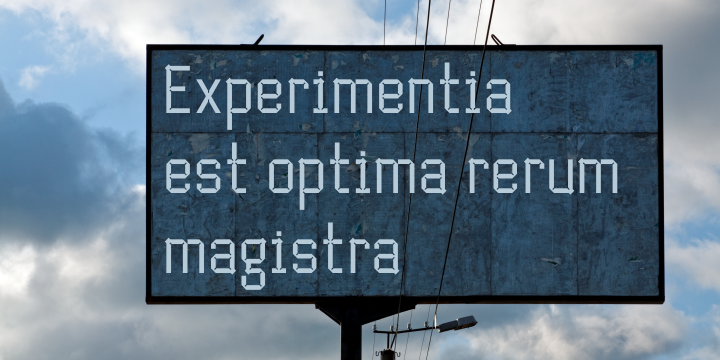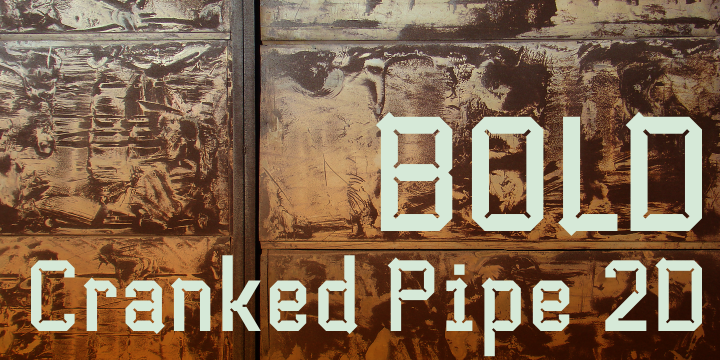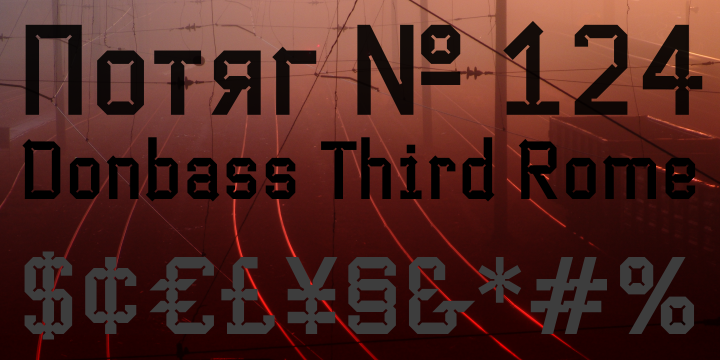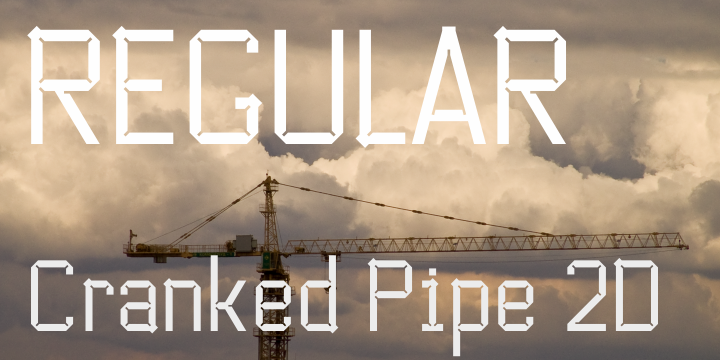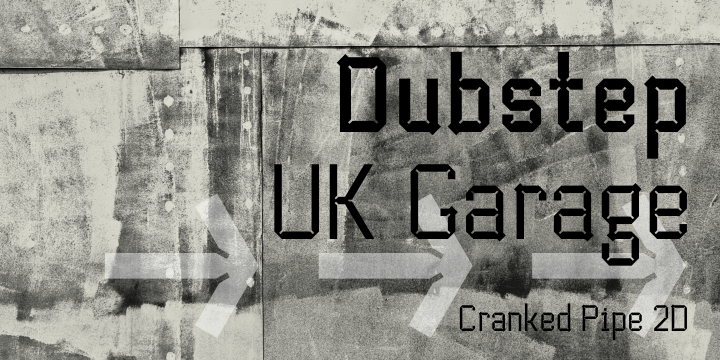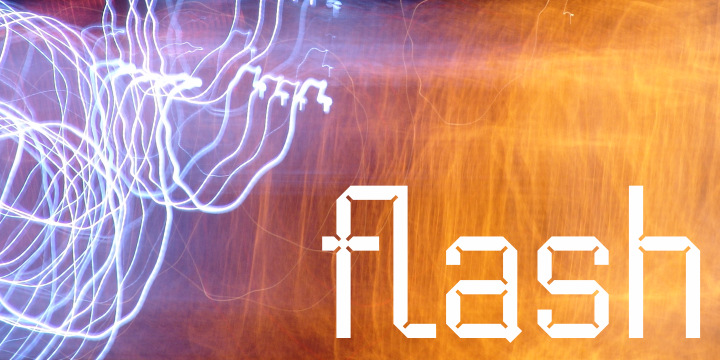
Cranked Pipe 2D is a display sans font family. This typeface has two styles and was published by 2D Typo.
Font has Industrial motifs and simple geometric shapes. Best suited for large lettering. Font contains characters for all occasions, many ligatures, alternatives and exotic.